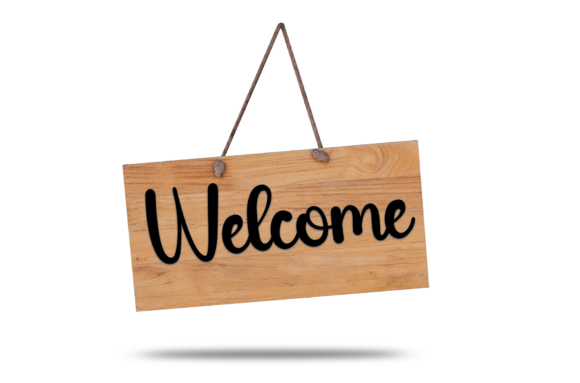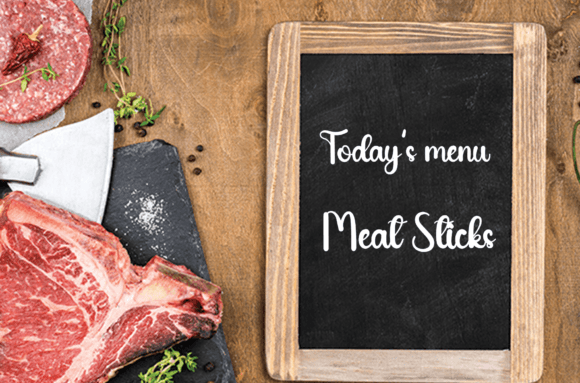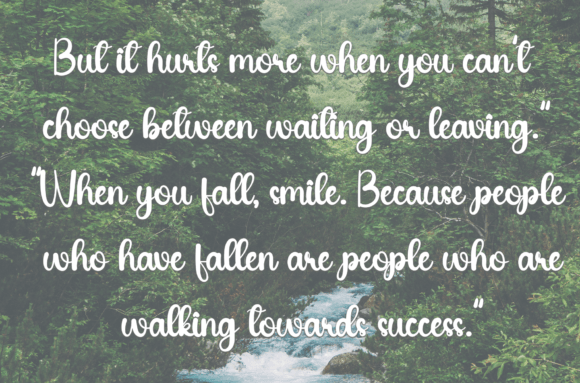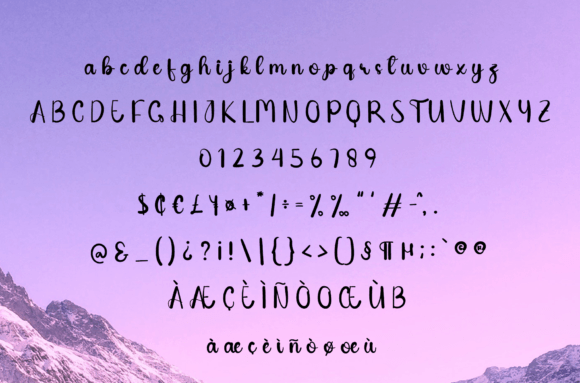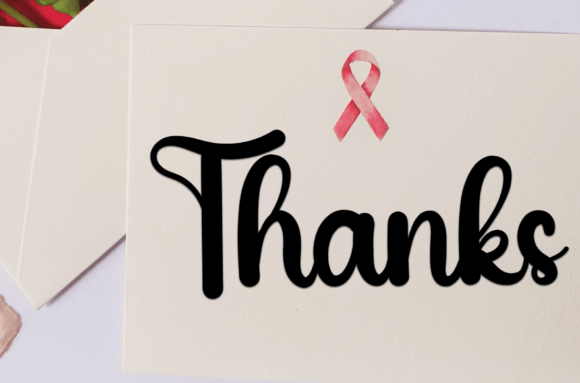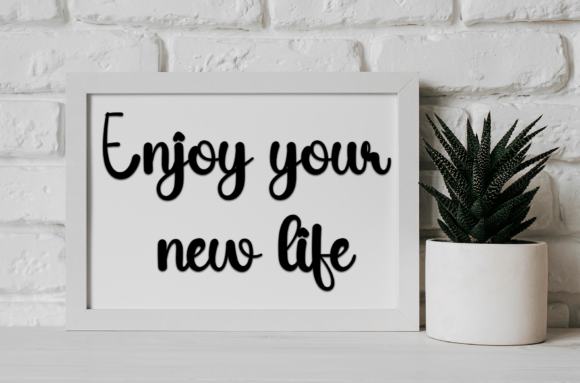
Garden Font
About Garden Font
Garden Font is a sweet and friendly handwritten typeface that brings a fun and relaxed vibe to your creative projects. Its approachable style makes it perfect for wedding invitations, greeting cards, and any design requiring a joyful and heartfelt touch. Garden adds warmth and personality, making your work feel inviting and personal.
Fun and Relaxed Handwritten Style
This font features soft, flowing strokes and friendly letterforms that create a cheerful and welcoming atmosphere. Garden balances casual charm with clarity, ensuring your designs look both playful and polished.
Ideal Uses for Garden Font
Garden is ideal for:
• Wedding invitations and save-the-date cards
• Greeting and thank-you cards
• Personal letters and notes
• Event signage and party decorations
• Social media posts and blog graphics
Its joyful and relaxed style fits many occasions and projects.
Why Choose Garden Font?
Designers love Garden for its:
• Sweet, friendly handwritten appearance
• Clear readability and casual charm
• Versatility across print and digital media
These qualities make Garden a practical and delightful font choice.
Add Joy and Warmth to Your Designs
Typography plays a key role in conveying mood. Garden adds a joyful and heartfelt tone, making your projects feel genuine and inviting. Whether for weddings or casual designs, this font enhances emotional connection.
In conclusion, Garden Font is a sweet and friendly handwritten script perfect for designers wanting to add a joyful and relaxed touch to invitations, cards, and more. Add Garden to your font collection for warm and inviting designs.